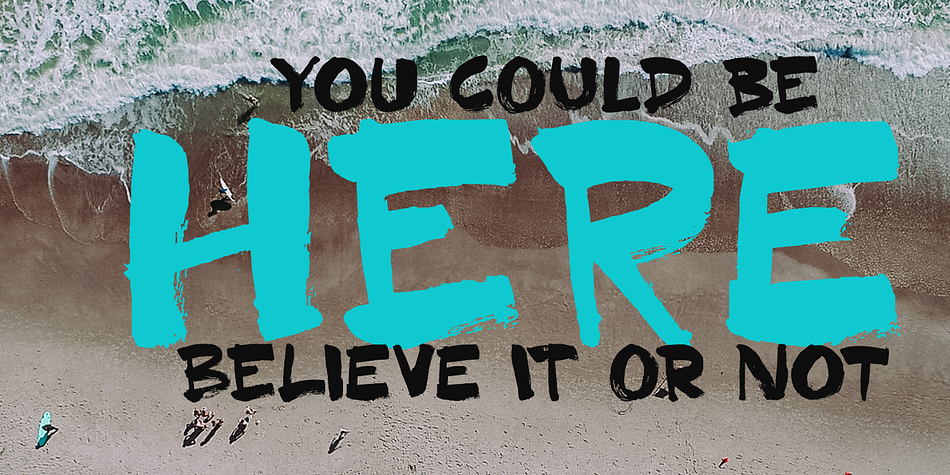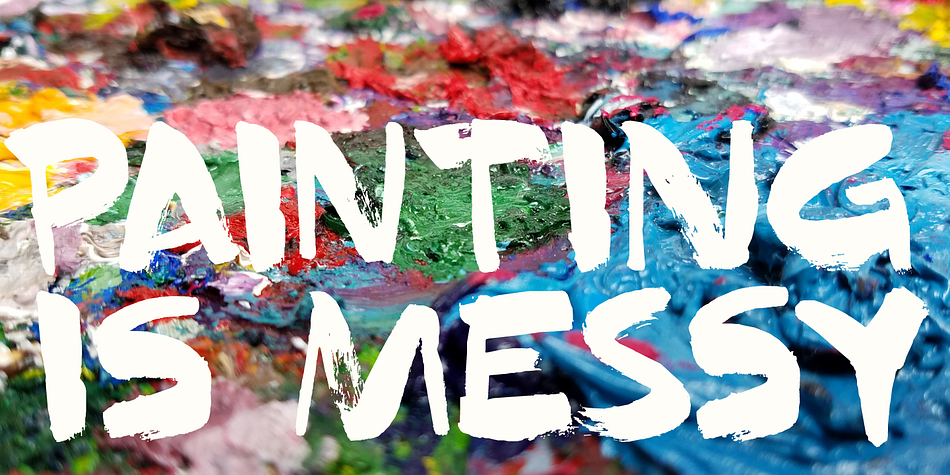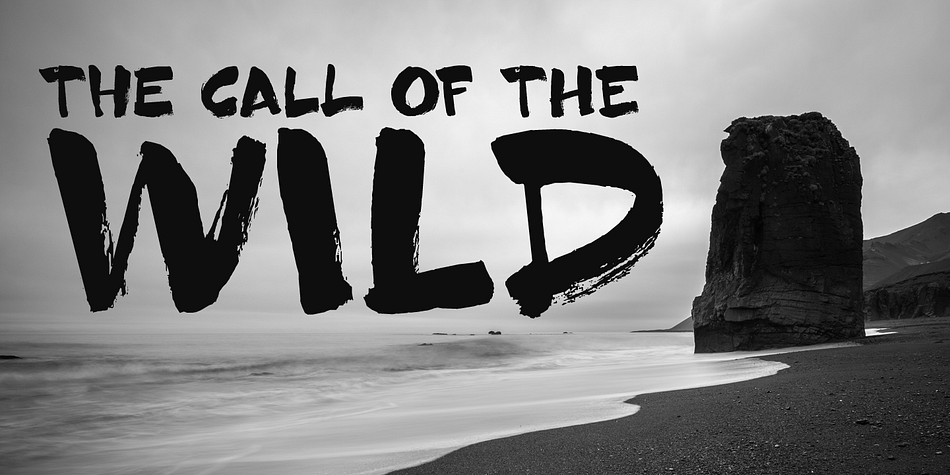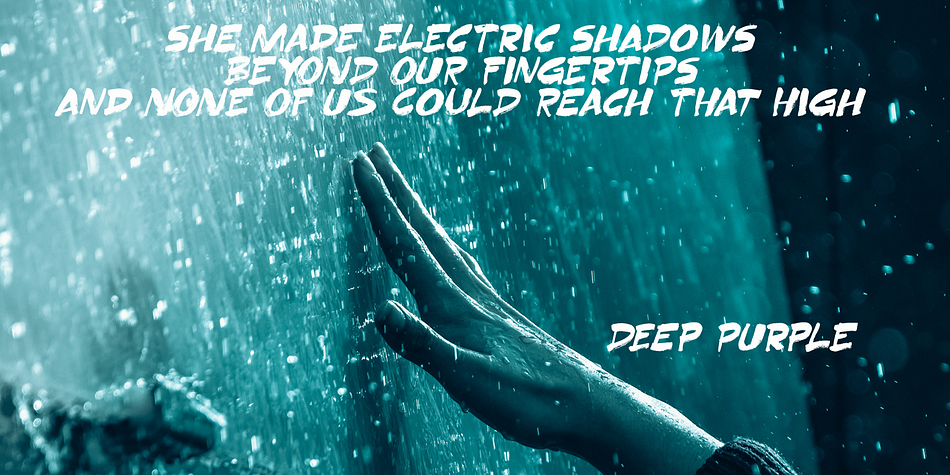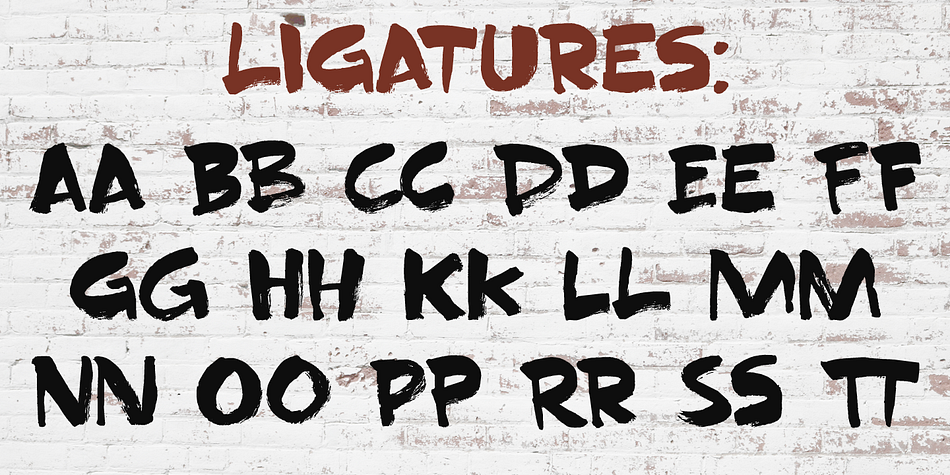
Designed by David Kerkhoff, Superbrush is a grunge and brush display font family. This typeface has two styles and was published by Hanoded.
Superbrush is, well, a super brush font! Made with Chinese ink, a flat brush and a lot of patience. Superbrush would look great on book covers, product packaging, old school rock albums and T-shirts.
Comes with a super amount of diacritics and double letter ligatures.